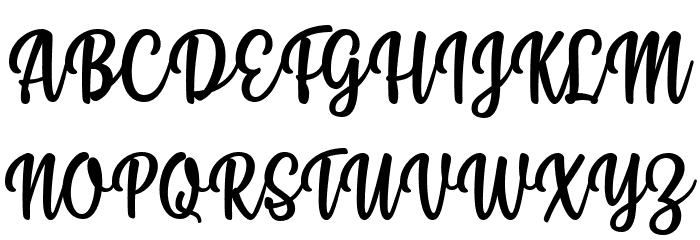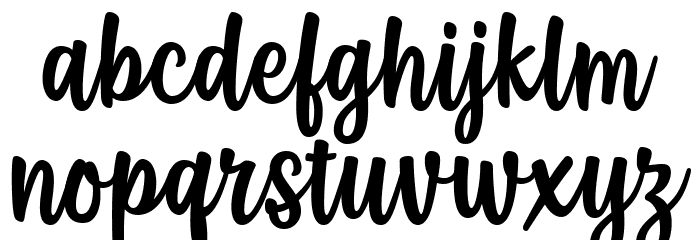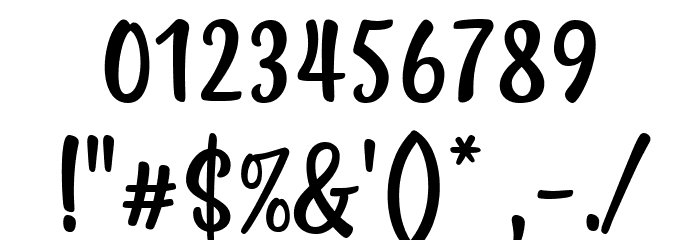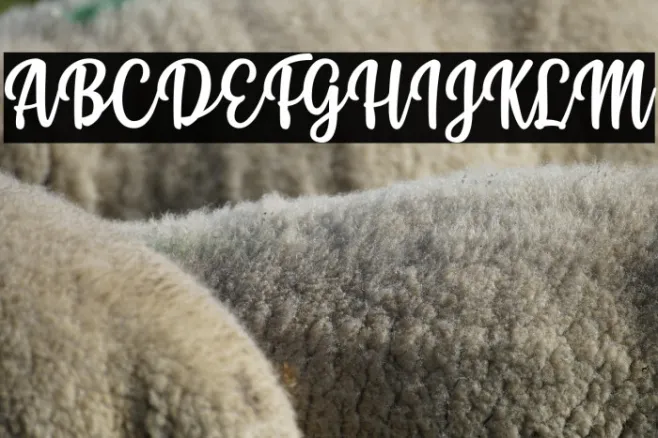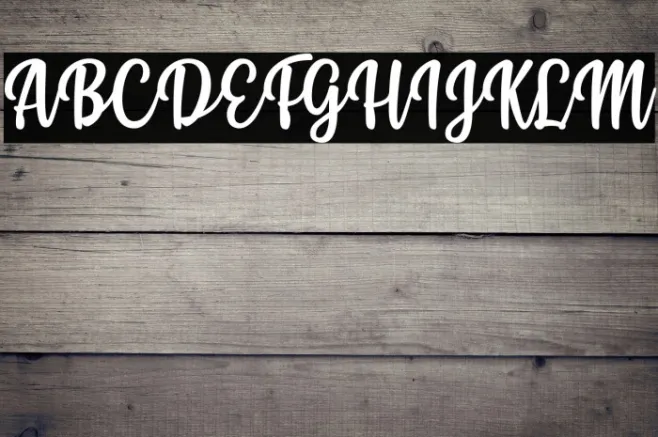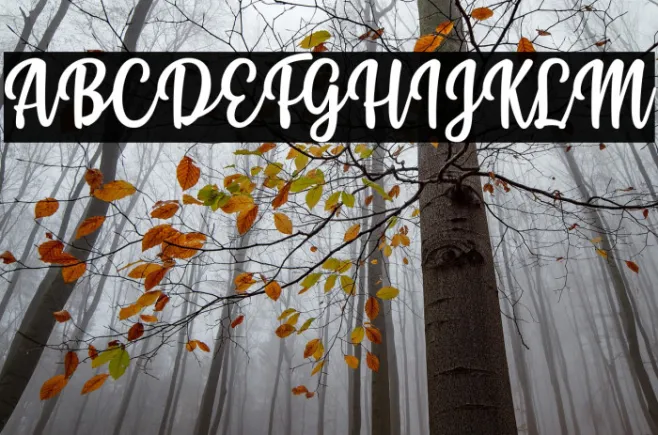
Styla Font
This font features a flowing, cursive style that exudes elegance and sophistication. The characters are interconnected, creating a seamless and fluid appearance. The uppercase letters are bold and prominent, while the lowercase letters maintain a consistent flow with slightly exaggerated loops and curves. The numbers are styled to match the overall cursive theme, providing a cohesive look. Special characters are also designed with the same attention to detail, ensuring uniformity across all glyphs. This font is perfect for projects that require a touch of elegance and personality.
A flowing, cursive font with elegant, interconnected characters.
- Font: Styla
- Proposed Projects: Ideal for wedding invitations, greeting cards, logos, and branding materials that require a personal touch.
- Category: Script
- Overall Style: Elegant
- Use Case: Logos, Invitations, Greeting Cards